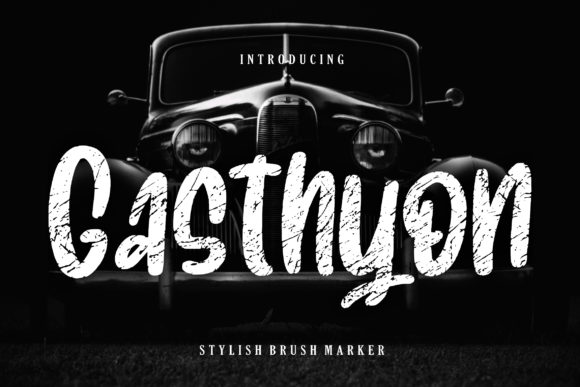
Introducing Gasthyon Font: The Perfect Blend of Casual and Quirky
Are you tired of using the same old fonts for your design projects? Look no further than Gasthyon Font, a casual, fun display font that’s sure to add a touch of personality to your work. Created by using a brush pen, Gasthyon is clean, quirky, and perfect for a wide range of applications, from logos and branding to social media and crafty DIY projects.
The Inspiration Behind Gasthyon Font
Gasthyon Font was created with the intention of bringing a fresh, playful vibe to the world of typography. The font’s designer used a brush pen to craft each letter, giving Gasthyon a unique, hand-crafted feel that’s perfect for designers and crafters looking for a more personal touch. The result is a font that’s both clean and quirky, with a charm that’s hard to resist.
Key Features of Gasthyon Font
So what sets Gasthyon Font apart from other fonts out there? Here are just a few of its key features:
• Hand-crafted feel: Gasthyon’s brush pen origins give it a unique, hand-crafted feel that’s perfect for adding a personal touch to your designs.
• Casual and fun: This font is all about having fun and embracing a more casual, laid-back vibe.
• Clean and legible: Despite its quirky charm, Gasthyon is still clean and easy to read, making it perfect for use in a wide range of applications.
• Versatile: Gasthyon is the perfect font for logos, branding, social media, and crafty DIY projects – the possibilities are endless!
Gasthyon Font is a dream come true for designers and crafters looking for a font that can add a touch of personality to their work. Whether you’re creating a logo, branding materials, or social media graphics, Gasthyon is the perfect choice. Its casual, fun vibe makes it perfect for:
• Logos and branding: Use Gasthyon to create a unique, memorable logo that sets your brand apart.
• Social media graphics: Add a touch of personality to your social media graphics with Gasthyon’s fun, quirky vibe.
• Crafty DIY projects: Gasthyon is perfect for crafty DIY projects, such as handmade cards, gift tags, and more.
Tips for Using Gasthyon Font
Here are a few tips for getting the most out of Gasthyon Font:
• Experiment with colors: Gasthyon looks great in a wide range of colors, so don’t be afraid to experiment and find the perfect hue for your design.
• Play with textures: Add some extra depth and interest to your design by pairing Gasthyon with different textures.
• Mix and match: Don’t be afraid to mix and match Gasthyon with other fonts to create a unique, eye-catching look.
Gasthyon Font is a game-changer for designers and crafters looking for a font that can add a touch of personality to their work. Its casual, fun vibe and hand-crafted feel make it perfect for a wide range of applications, from logos and branding to social media and crafty DIY projects. With its versatility, legibility, and charm, Gasthyon is sure to become a favorite in your design toolkit.
Get Ready to Fall in Love with Gasthyon Font
So what are you waiting for? Give Gasthyon Font a try today and discover the perfect blend of casual and quirky for your next design project. With its unique charm and versatility, Gasthyon is sure to capture your heart and inspire your creativity.